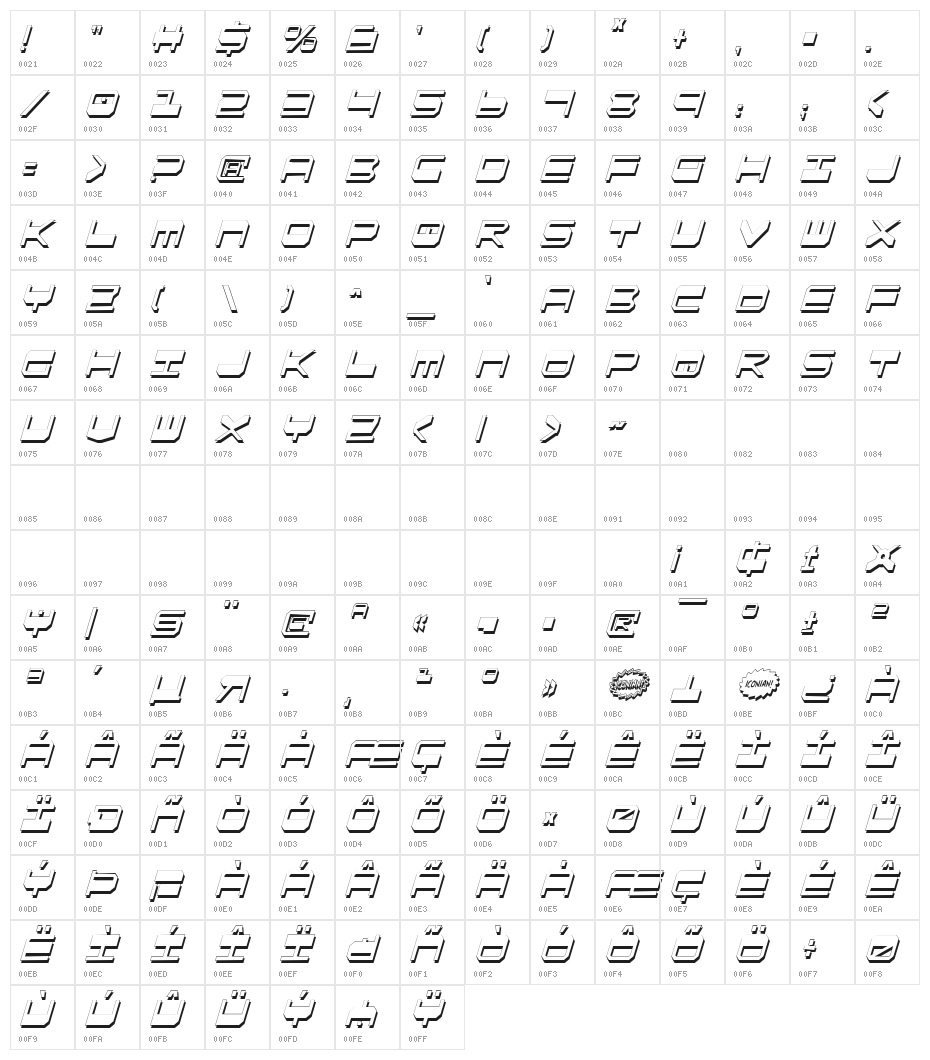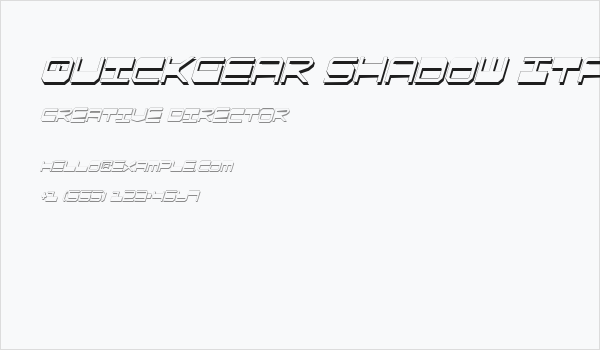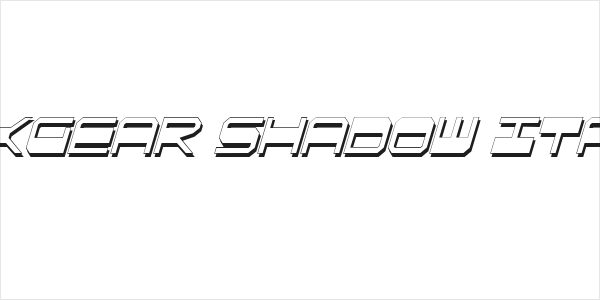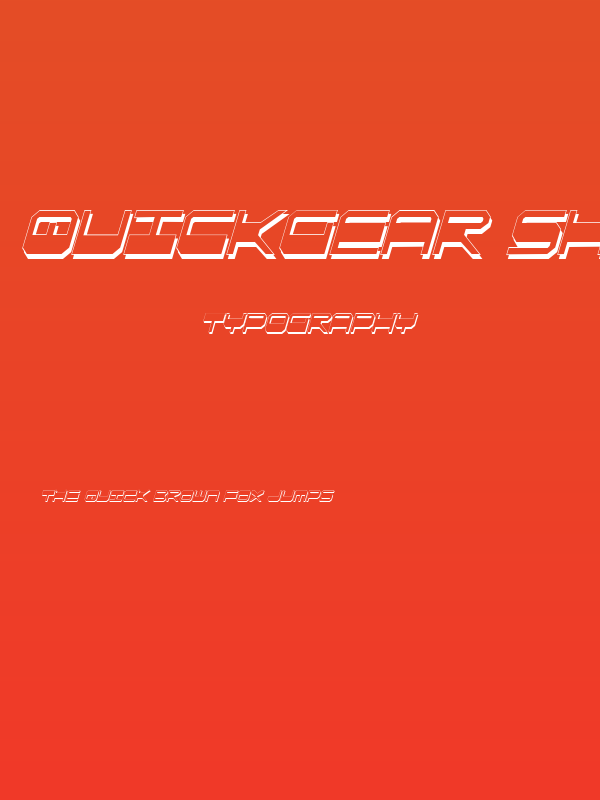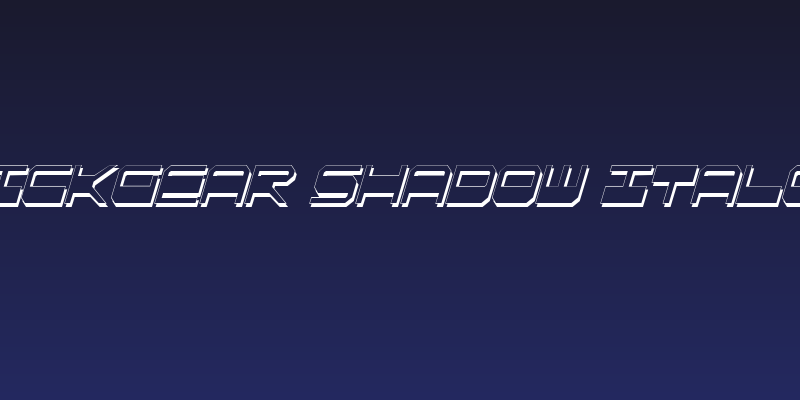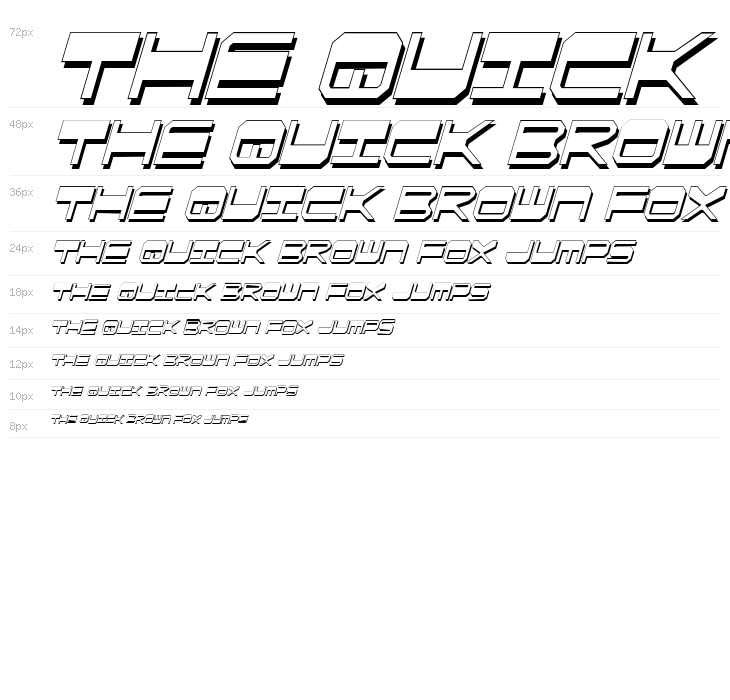
QuickGear Shadow ItalCon Font
QuickGear Shadow ItalCon Description
This font features a bold, futuristic style with a distinct shadow effect that gives it a three-dimensional appearance. The characters are italicized, adding a sense of motion and speed. The design is geometric, with sharp angles and clean lines, creating a modern and dynamic look. The uppercase and lowercase letters maintain a consistent style, while the numbers and special characters complement the overall aesthetic. The shadow effect enhances the depth and visual interest, making it suitable for eye-catching designs.
| Proposed Projects | Ideal for technology branding, sci-fi posters, video game titles, and dynamic logo designs. |